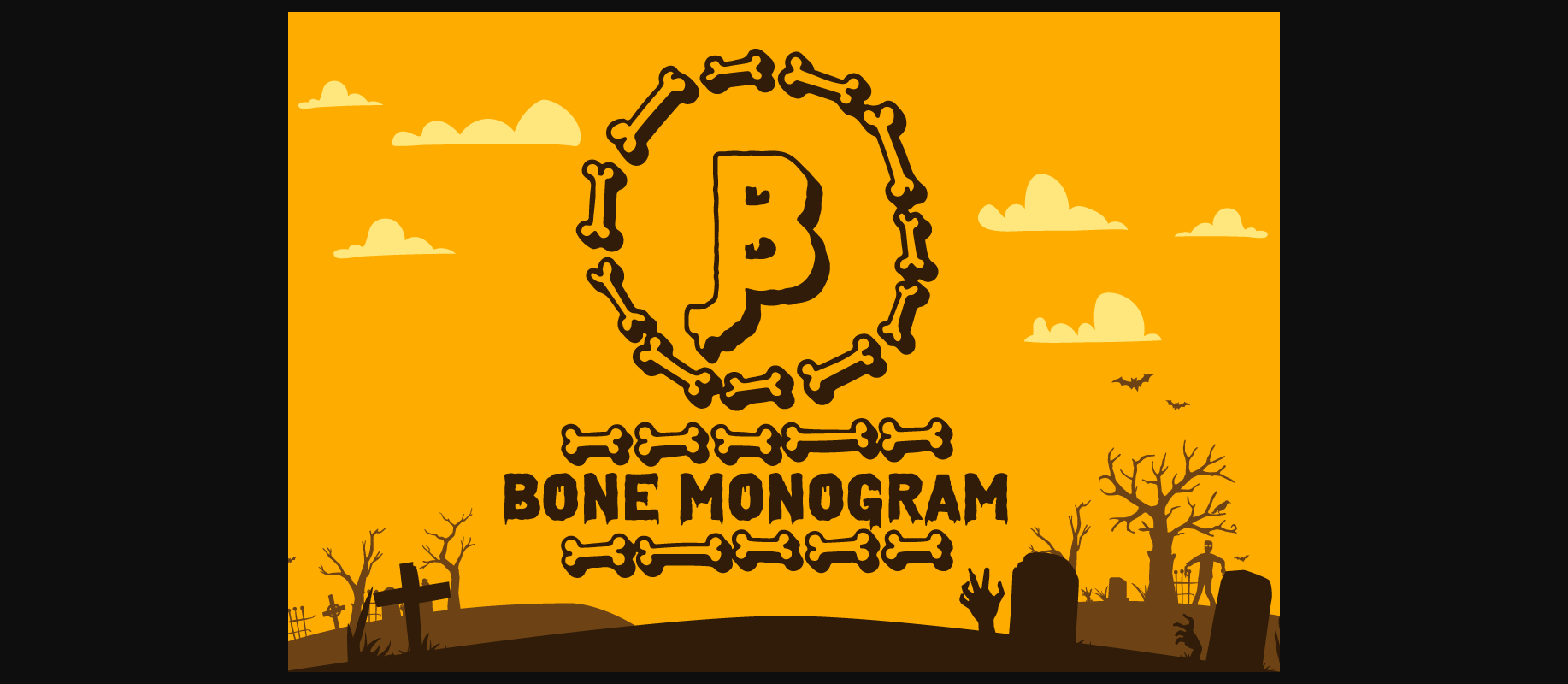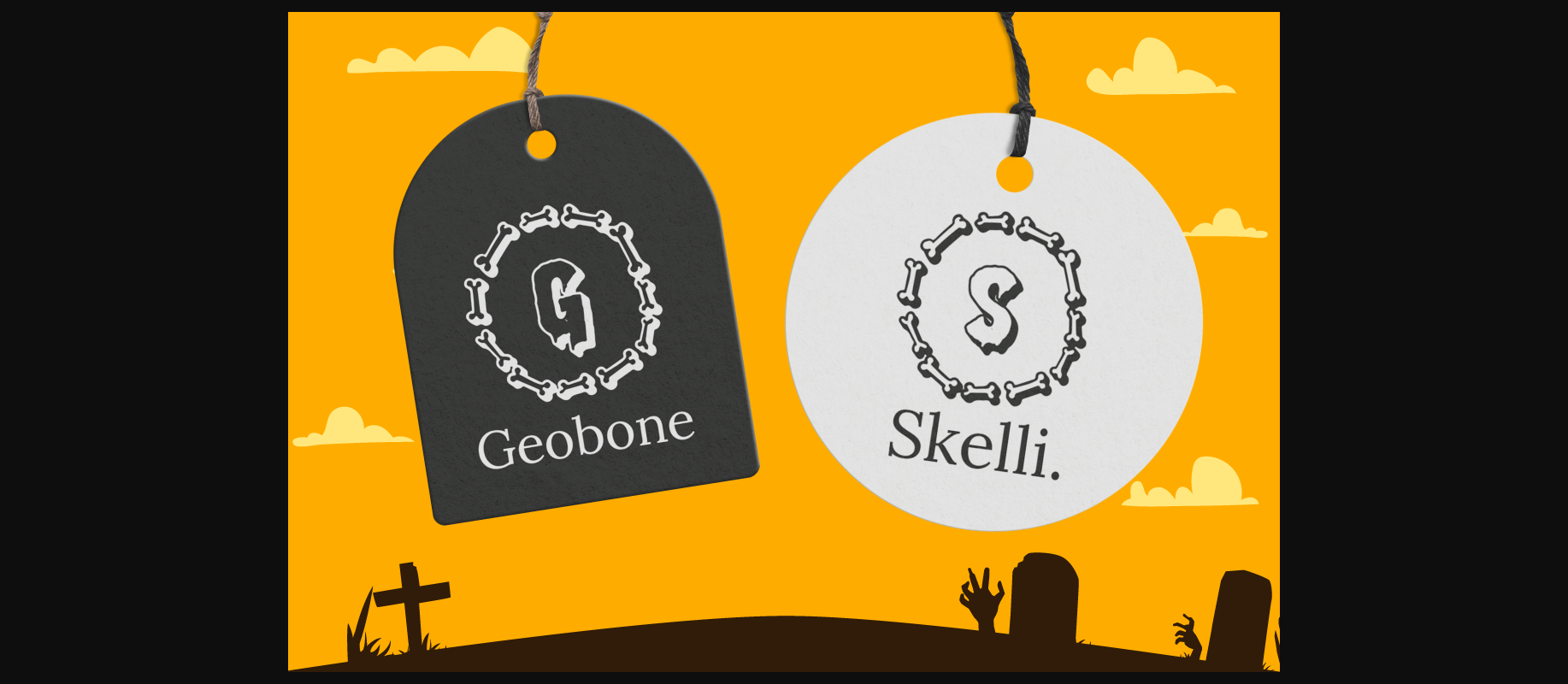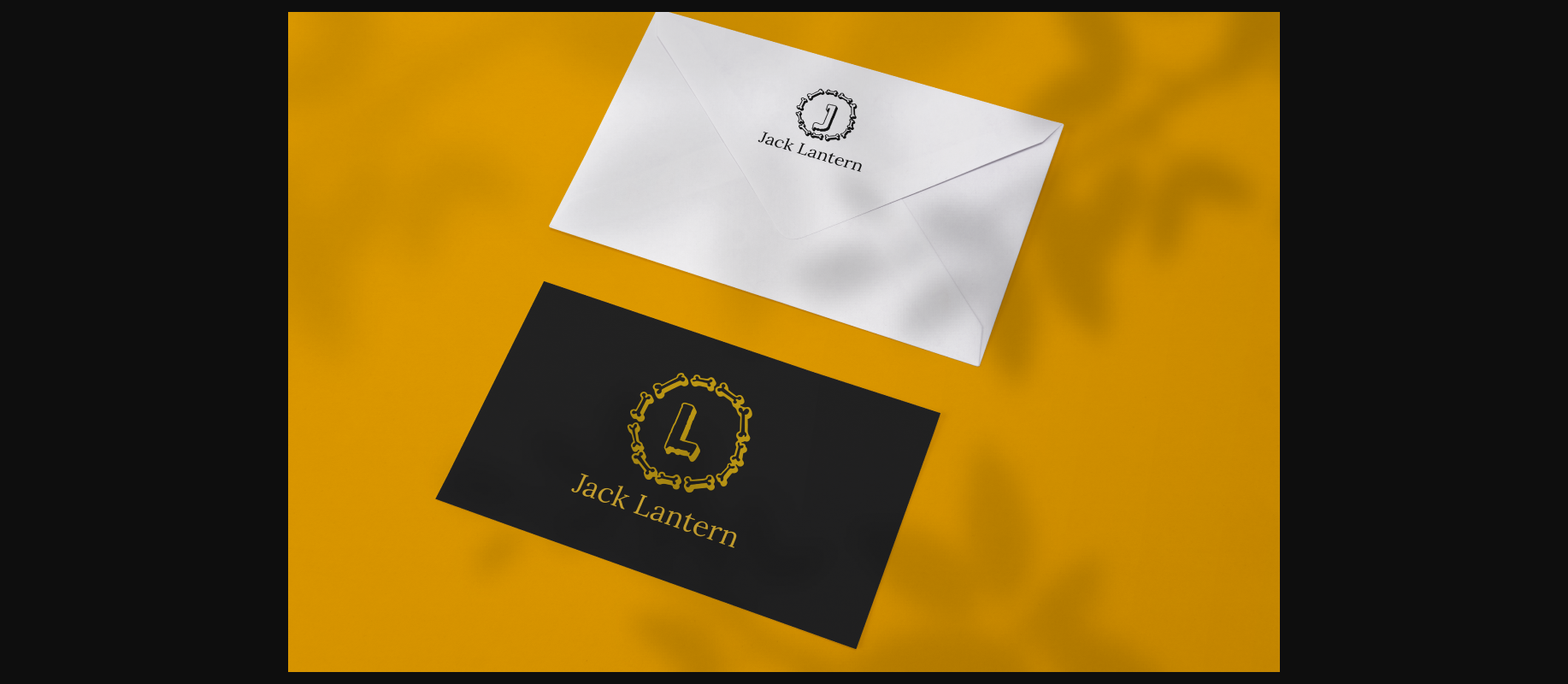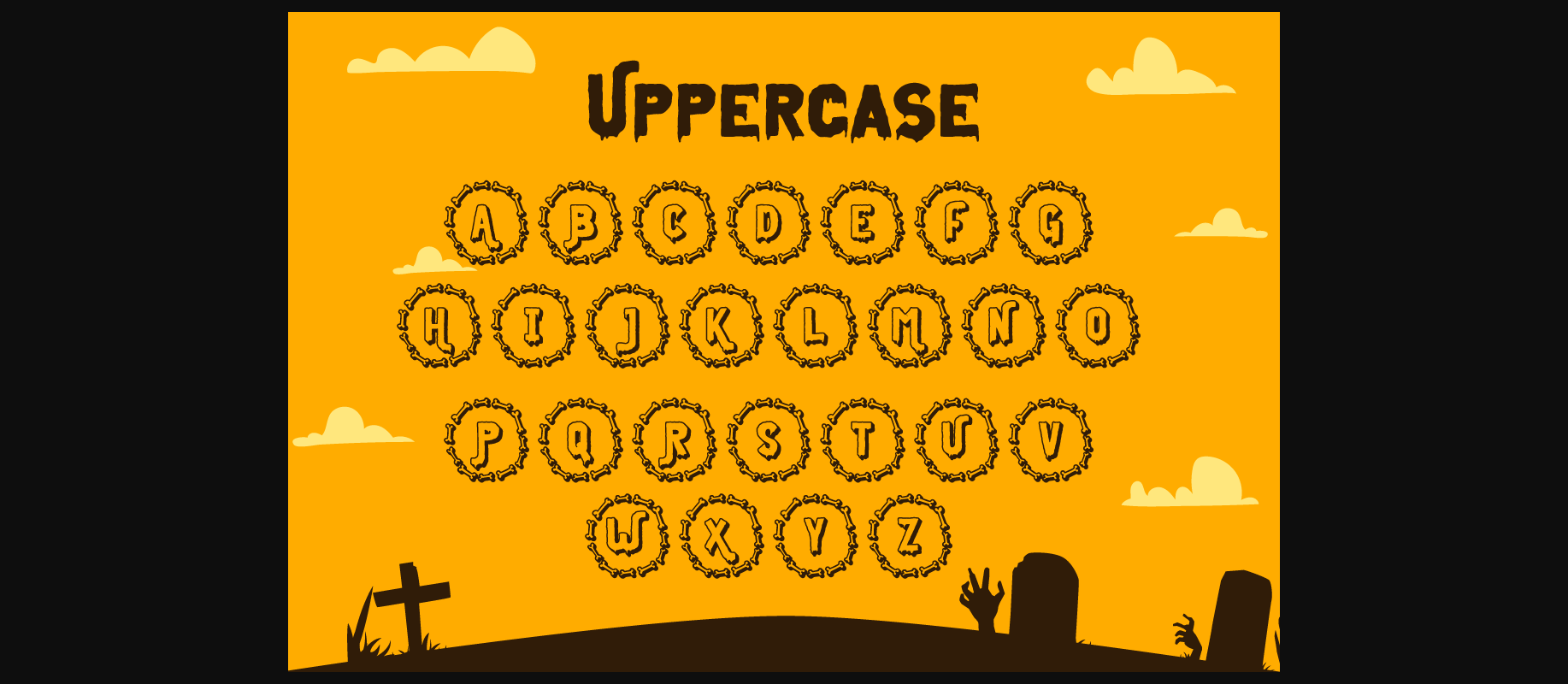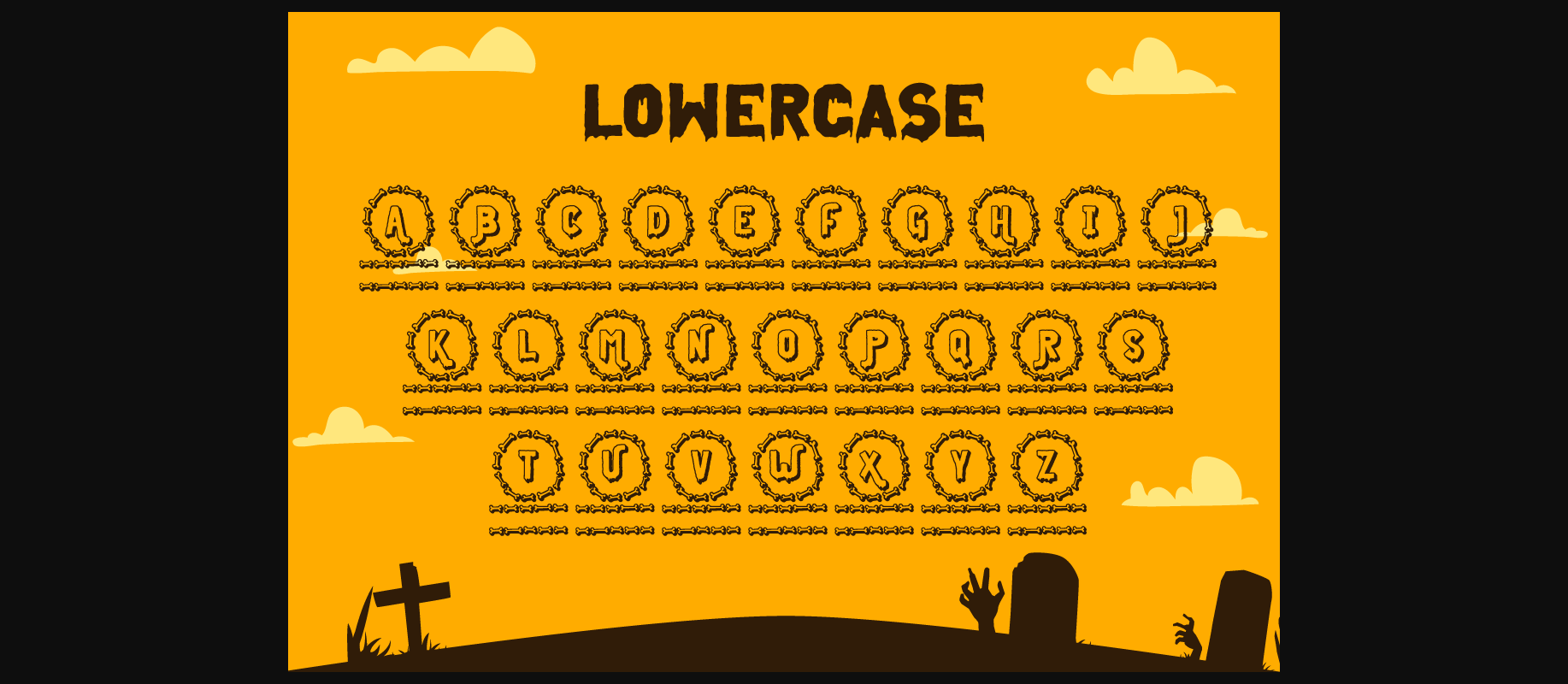
About Bone Halloween Monogram Font
Bone Halloween Monogram is a cool-lettered and spooky decorative font. It is perfectly suitable for any Halloween-related project or crafty idea! The only limit is your imagination